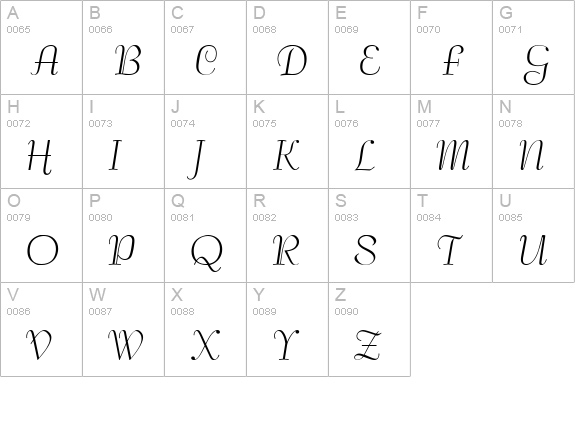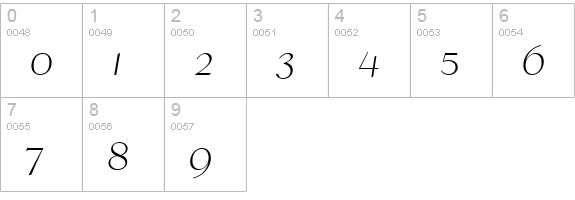
Safrole Normal is the standard, neutral variant in the Safrole typeface family \xE2\x80\x94 well suited to general body text, paragraphs, and standard typographic work.
Safrole Normal font is a stunning display font that exudes elegance and sophistication. With its clean and modern design, this font is perfect for creating eye-catching headlines, logos, and branding materials. The Safrole Normal font features sleek and streamlined letterforms, with subtle curves and sharp edges that give it a unique and stylish appeal. Its versatility makes it suitable for a wide range of design projects, from print materials to digital assets. One of the best things about Safrole Normal font is that it is free! That's right, this amazing font is freely available to download at FontsMarket.com. Whether you are a professional designer or a hobbyist, you can easily access this font and use it in your projects without any restrictions. So why wait? Download Safrole Normal font today and elevate your designs with its timeless beauty. It's the perfect choice for those who want to make a bold statement while maintaining a touch of sophistication.